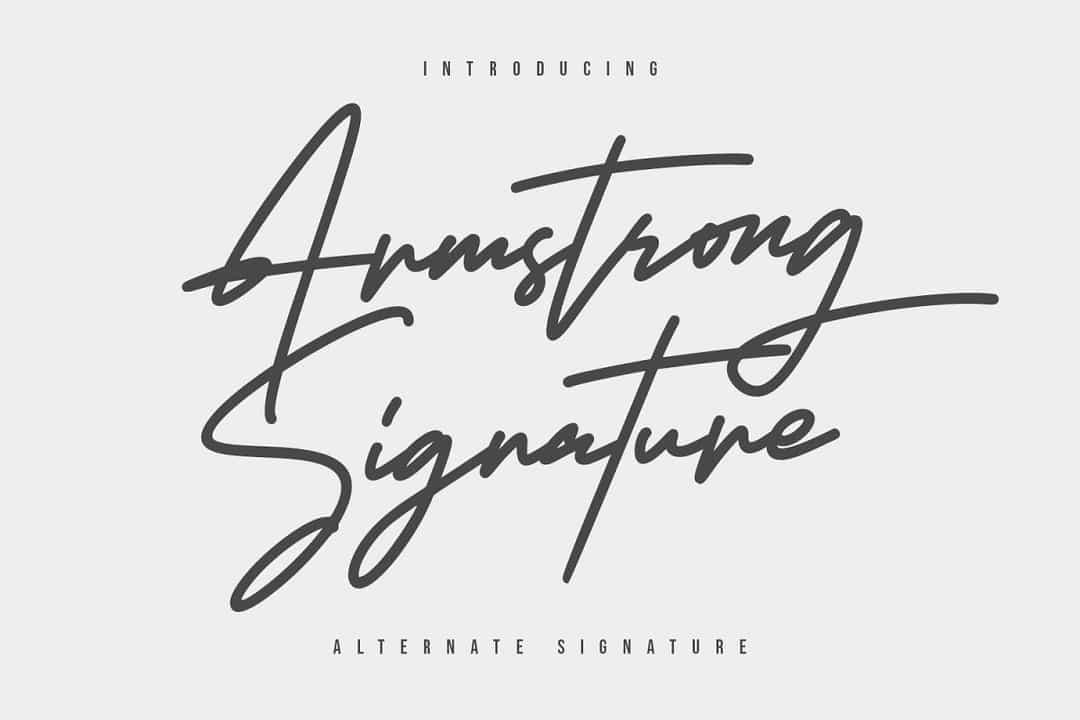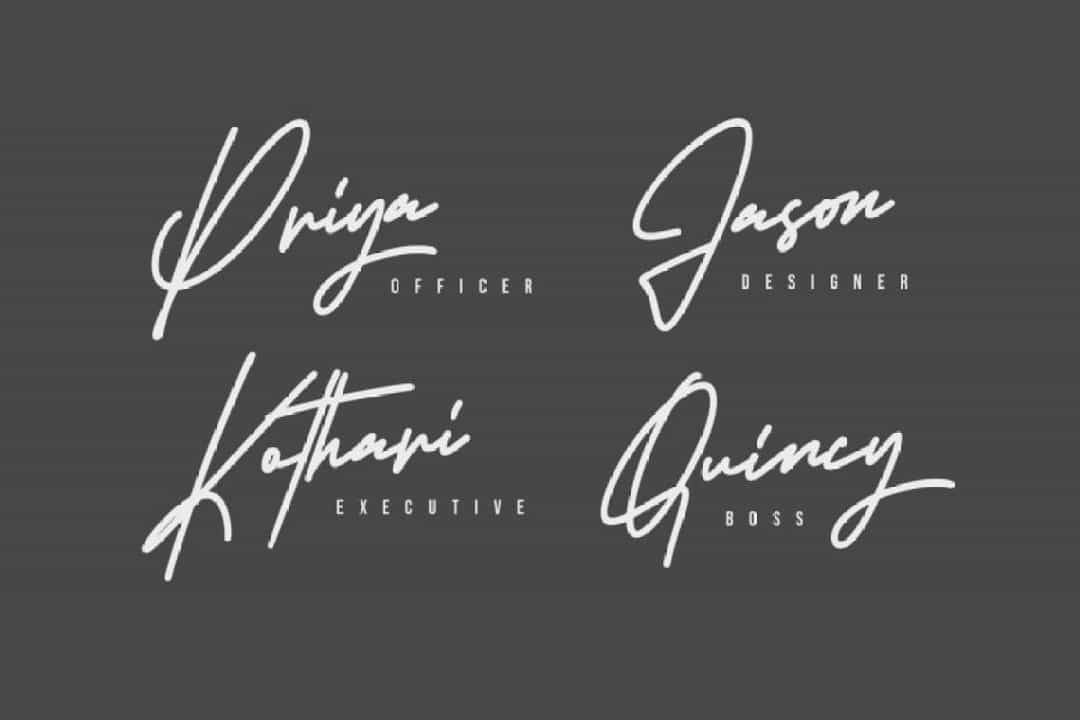
Discover Armstrong Signature Script Font, part of the Handwritten Script collection—a versatile and unique font perfect for adding a personal touch to your projects. Download it for free and enjoy crafting designs with style, from invitations to social media posts. This font is available exclusively for personal use, giving you the freedom to create without limits. Unlock your creativity with Armstrong Signature Script Font today!
Designs with a genuine handmade appearance are possible with the help of “Armstrong Signature Font”. It will be ideal for the incorporation in stationery, signatures, logos, typographic quotes, book or magazine covers, web headers, clothing branding design packages, packaging design projects, and more.